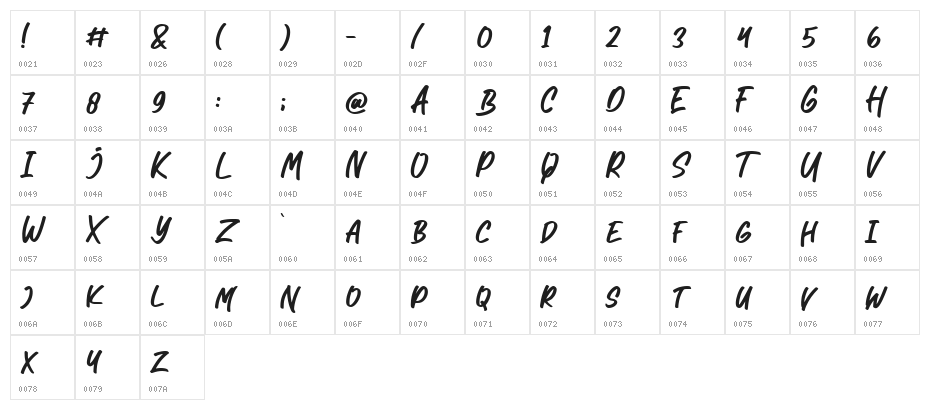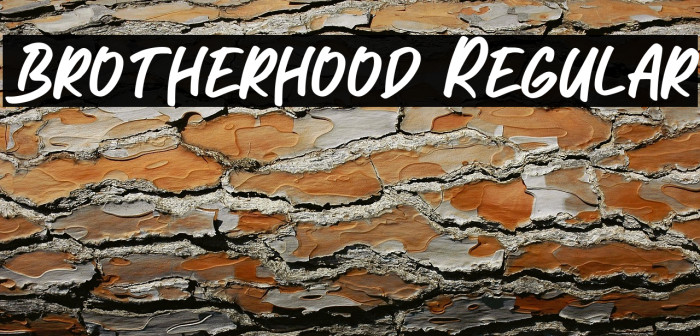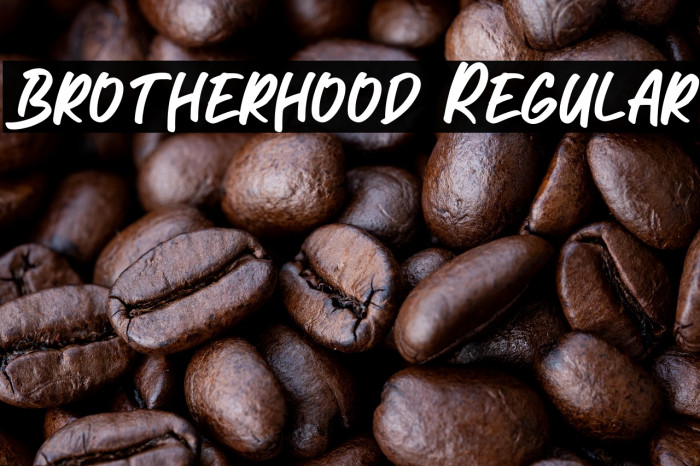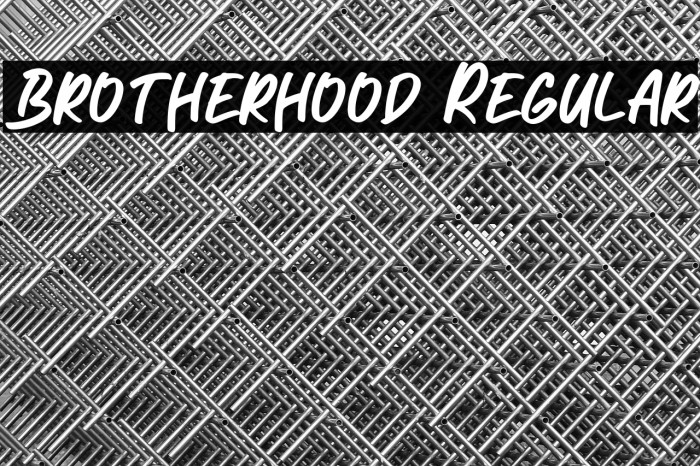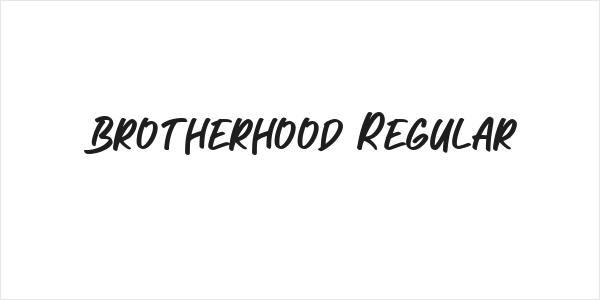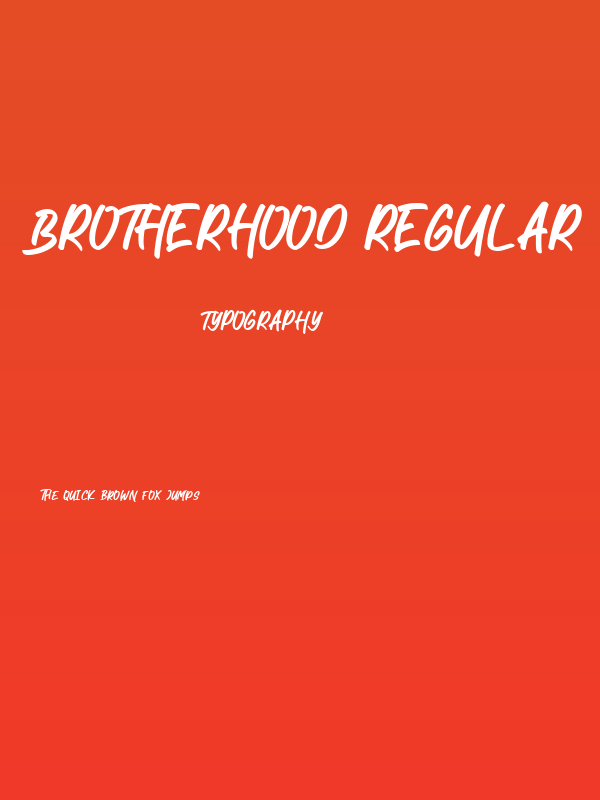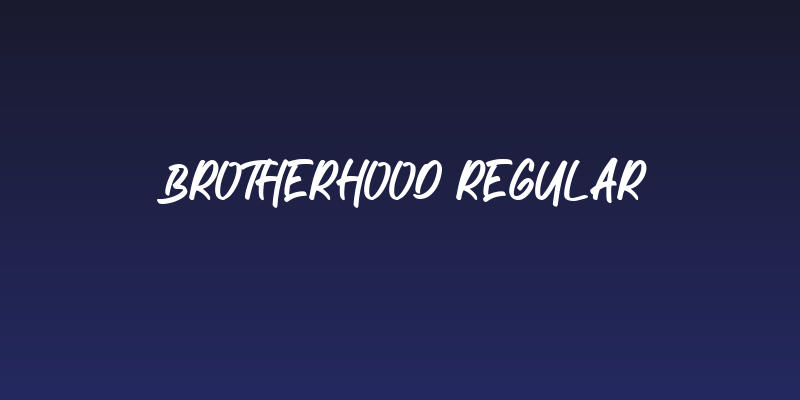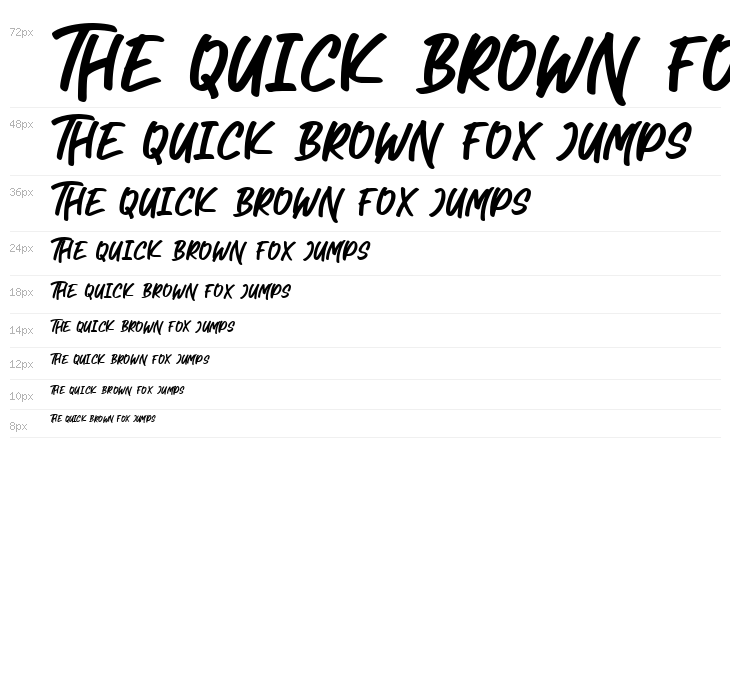
Brotherhood Regular Font
Brotherhood Regular Description
This font features a bold, handwritten style with a dynamic and energetic appearance. The letters are slightly slanted, giving a sense of movement and fluidity. The strokes are thick and consistent, providing a strong presence on the page. The uppercase and lowercase letters are well-balanced, with a playful yet sophisticated look. The numbers and special characters maintain the same boldness and style, ensuring uniformity across all text elements. This font is ideal for projects that require a personal touch or a creative flair.
| Proposed Projects | Perfect for branding, logos, posters, and social media graphics that require a personal and creative touch. |